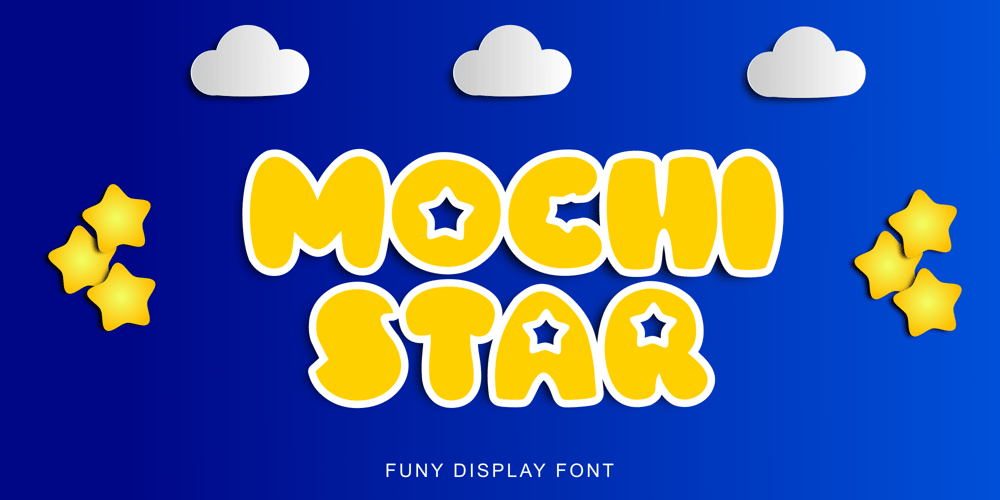
Mochi Star Font Family was designed by Rusdin Hendarsono and published by Alfareaniy. Mochi Star contains 1 styles and family package options. Mochi Star is a cute and baby-like display font. This font will turn each of your project ideas into real works of art. Have fun with this fun font and explore its endless variations!